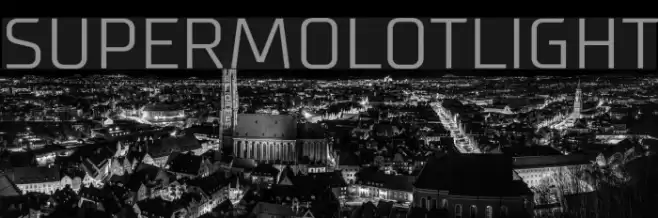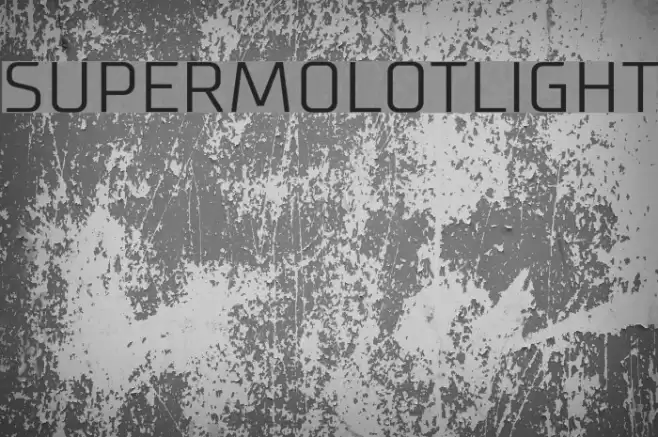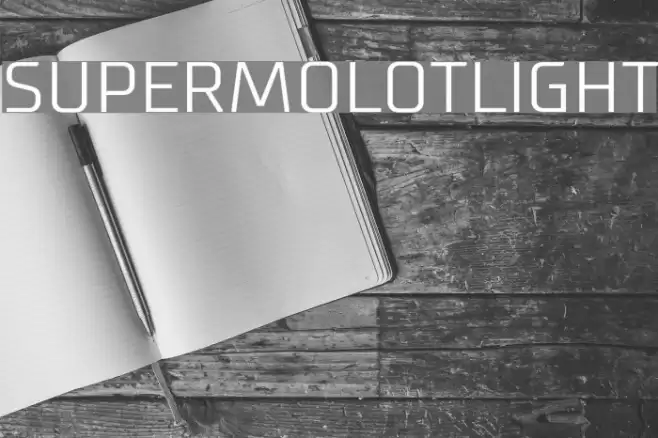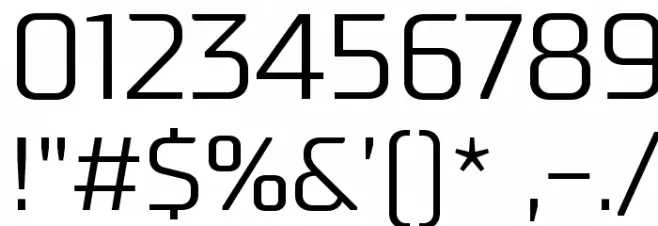
SupermolotLight Font
SupermolotLight Description
This font features a modern, geometric sans-serif style with clean, straight lines and a minimalistic aesthetic. The characters are uniform in width, creating a balanced and cohesive look. The uppercase and lowercase letters maintain a consistent height, contributing to its orderly appearance. The numerals are clear and easily distinguishable, while the special characters are designed to complement the overall style. The font's simplicity and clarity make it suitable for a wide range of applications, from digital interfaces to print media.
A modern, geometric sans-serif font with clean lines and a minimalistic design from Uncategorized fonts.
- Proposed Projects: Ideal for digital interfaces, branding, advertising, and print media where clarity and modernity are desired.
- Weight: Light
- Use Case: Headlines, Body text, Logos